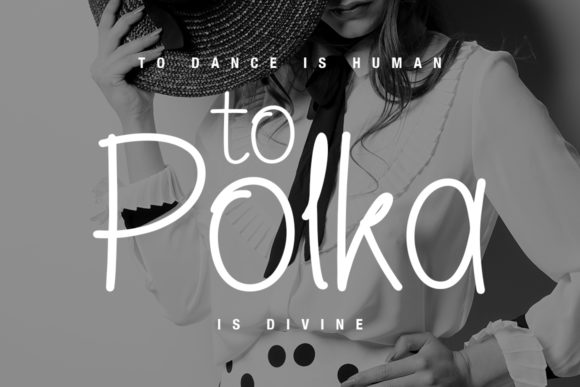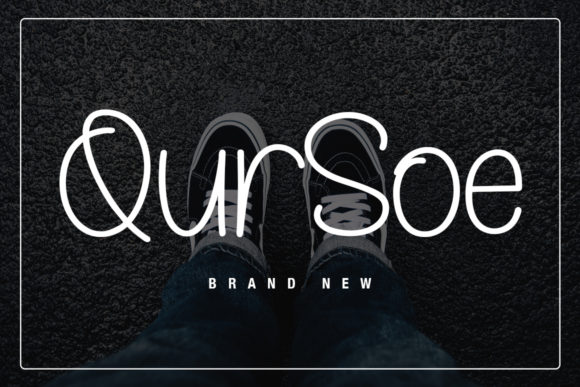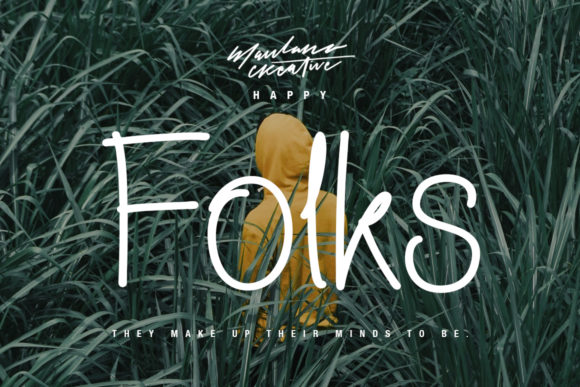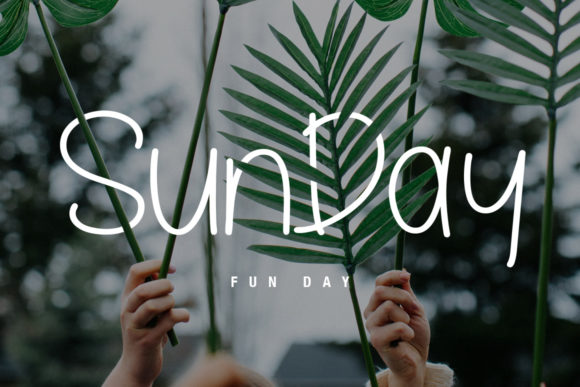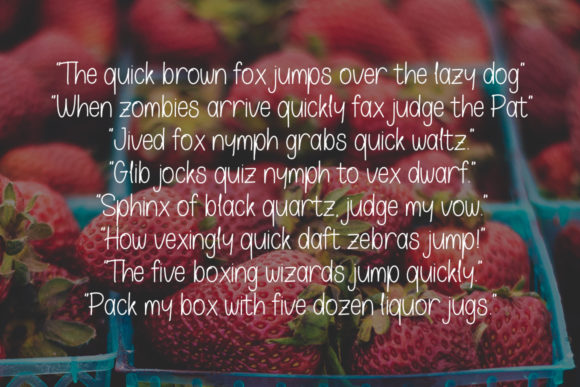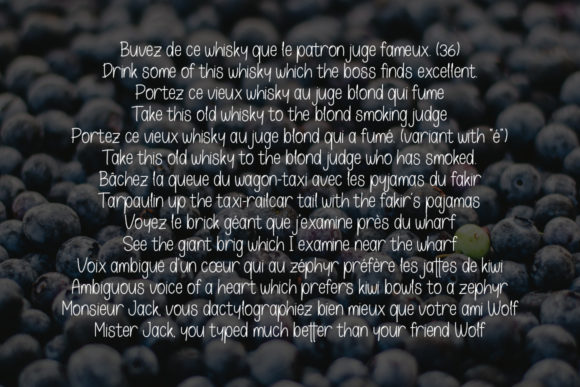
Introduction to Oskosh Font
As a designer, there’s nothing quite like the thrill of discovering a new font that perfectly captures the essence of your creative vision. It’s like stumbling upon a hidden gem in a treasure trove of typography – an ‘aha’ moment that sets your project ablaze with inspiration. For many designers, that moment came when they laid eyes on the Oskosh Font.
With its simple yet bold design, the Oskosh Font has become a go-to resource for designers looking to add a unique spark to their creative projects. Whether you’re working on a logo, brochure, or website, this high-quality font is sure to elevate your design to the next level. Plus, its transparent background makes it easy to integrate into any design without distractions.
Key Features of Oskosh Font
- Features a transparent background, making it ideal for use on any design element without visual obstruction.
- Designed to be highly legible and visually appealing, with a unique character set that adds to its charm.
Honest Review: Oskosh Font
One of the standout features of the Oskosh Font is its transparent background, which makes it easy to customize and layer with other design elements. The font itself is quite versatile and can be used for a wide range of applications, from branding to editorial design.
Here are some of the things that work well with the Oskosh Font:
- High quality design that’s perfect for print or digital projects
- Translucent background for seamless layering
- Limited character set, which may not be suitable for long-form text
- No bold or italic weights available
Overall, the Oskosh Font is a solid choice for designers looking for a unique and high-quality design resource. While it may have some limitations, its transparent background and free download make it a great option for creative projects.
Oskosh Font
Tips for Getting the Most Out of Oskosh Font
To get the most out of Oskosh Font, use it in combination with other design elements to create a cohesive and visually appealing design. Experiment with different font sizes, colors, and styles to find the perfect balance for your creative project.
Oskosh Font is commonly used in graphic design, digital art, and branding projects. Its high-quality design makes it an ideal choice for creating professional-looking designs and marketing materials.